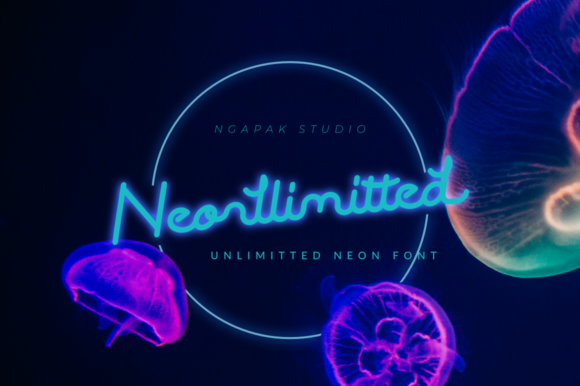
Step into the Realm of Neonllimitted: A Handwritten Font Radiating Urban Vibes
Embrace the captivating essence of Neonllimitted, a mesmerizing handwritten font that echoes the enigmatic allure of urban landscapes. This typographic masterpiece dances with a raw, yet refined charm, effortlessly captivating the hearts of designers, artists, and creative visionaries alike.
Neonllimitted is a testament to the power of simplicity, embodying the essence of minimalism with its clean lines and unpretentious style. Yet, within its understated elegance lies an abundance of versatility, allowing it to seamlessly adapt to a kaleidoscope of creative endeavors. Unleash your imagination and witness how Neonllimitted transforms your designs, adding a touch of urban grit to logos, branding projects, posters, social media graphics, and more.
Dive into the boundless possibilities that await with Neonllimitted. Its meticulously crafted characters exude a vibrant personality, brimming with energy and expression. Each stroke, each curve, each nuance is a testament to the font's unwavering commitment to visual excellence. Prepare to be mesmerized as Neonllimitted breathes life into your creative pursuits, leaving an indelible mark on the hearts and minds of your audience.
Unleash Your Creativity with Neonllimitted: A Font Tailored for Urban Explorers
Journey through the urban jungle, where Neonllimitted reigns supreme as the font of choice for design adventurers. Its bold, unapologetic presence commands attention, effortlessly capturing the essence of street art, graffiti, and contemporary urban culture. Embrace the raw, edgy aesthetic of Neonllimitted, and watch as your designs pulse with the vibrant energy of cityscapes.
Express Yourself with Neonllimitted: A Font for the Unconventional
Break free from the mundane and embrace your unconventional spirit with Neonllimitted. This font is a declaration of individuality, a celebration of those who dare to defy the norm. Its unique charm beckons you to push boundaries, to explore uncharted territories of creativity. Whether you're a seasoned designer or just starting your artistic journey, Neonllimitted empowers you to leave your mark on the world, one design at a time.
Dive into a World of Endless Possibilities: Neonllimitted Awaits Your Creative Touch
With Neonllimitted as your creative companion, embark on a journey of boundless possibilities. Let your imagination soar as you explore the myriad ways in which this font can elevate your designs. Whether you're crafting eye-catching logos, captivating social media posts, or stunning website designs, Neonllimitted stands ready to amplify your vision and leave a lasting impression.